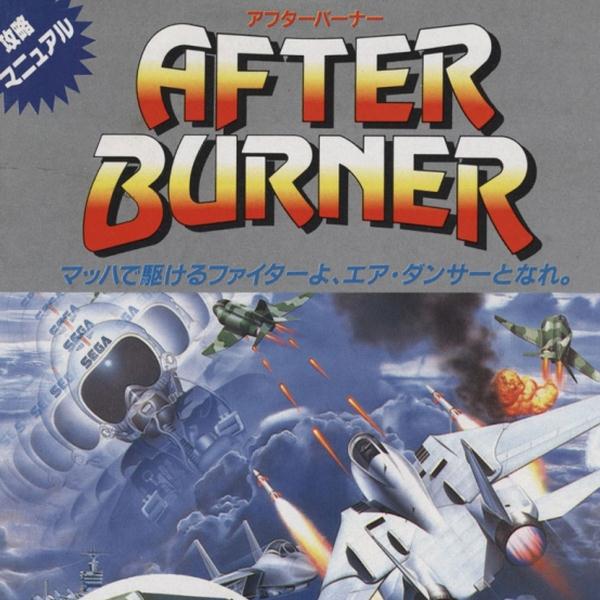
After Burner Font
ActionAfter Burner is an arcade-style flight simulation video game known for its intense aerial combat and high-speed action. It was developed by Sega and first released in 1987.
The game logo of After Burner likely features the Revue font, created by Colin Brignall in 1968 for Letraset. More information about Revue can be found here.